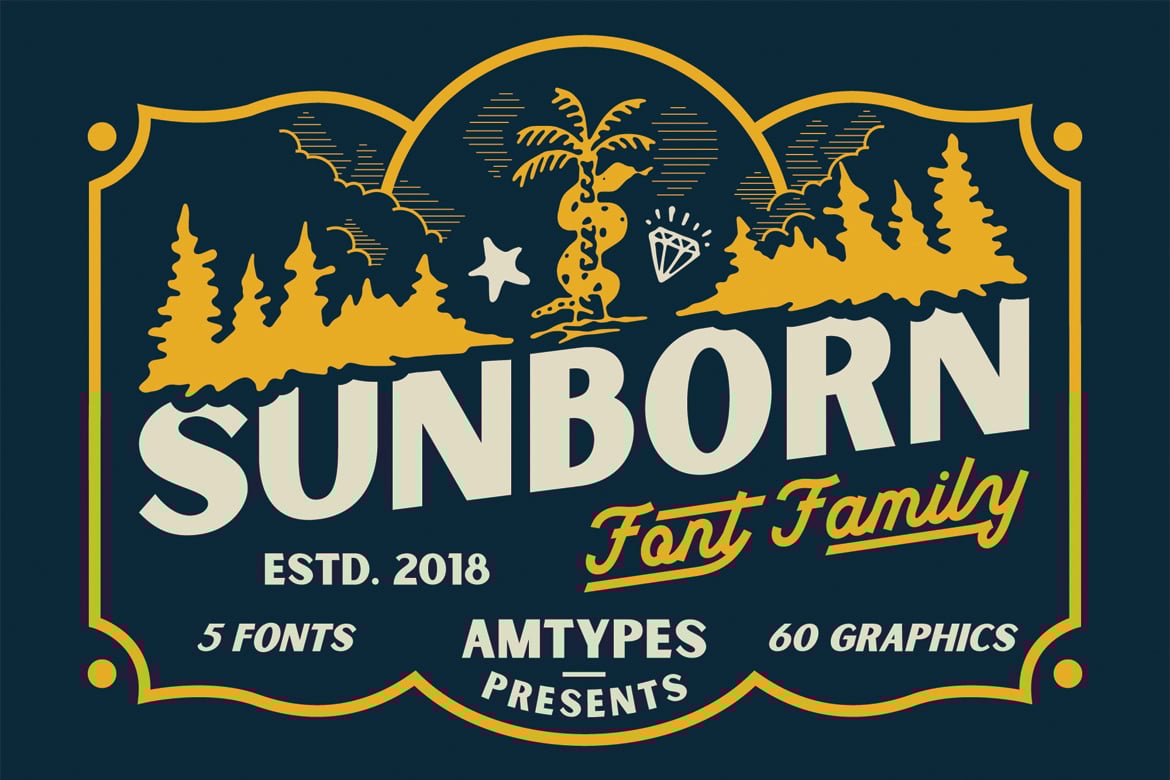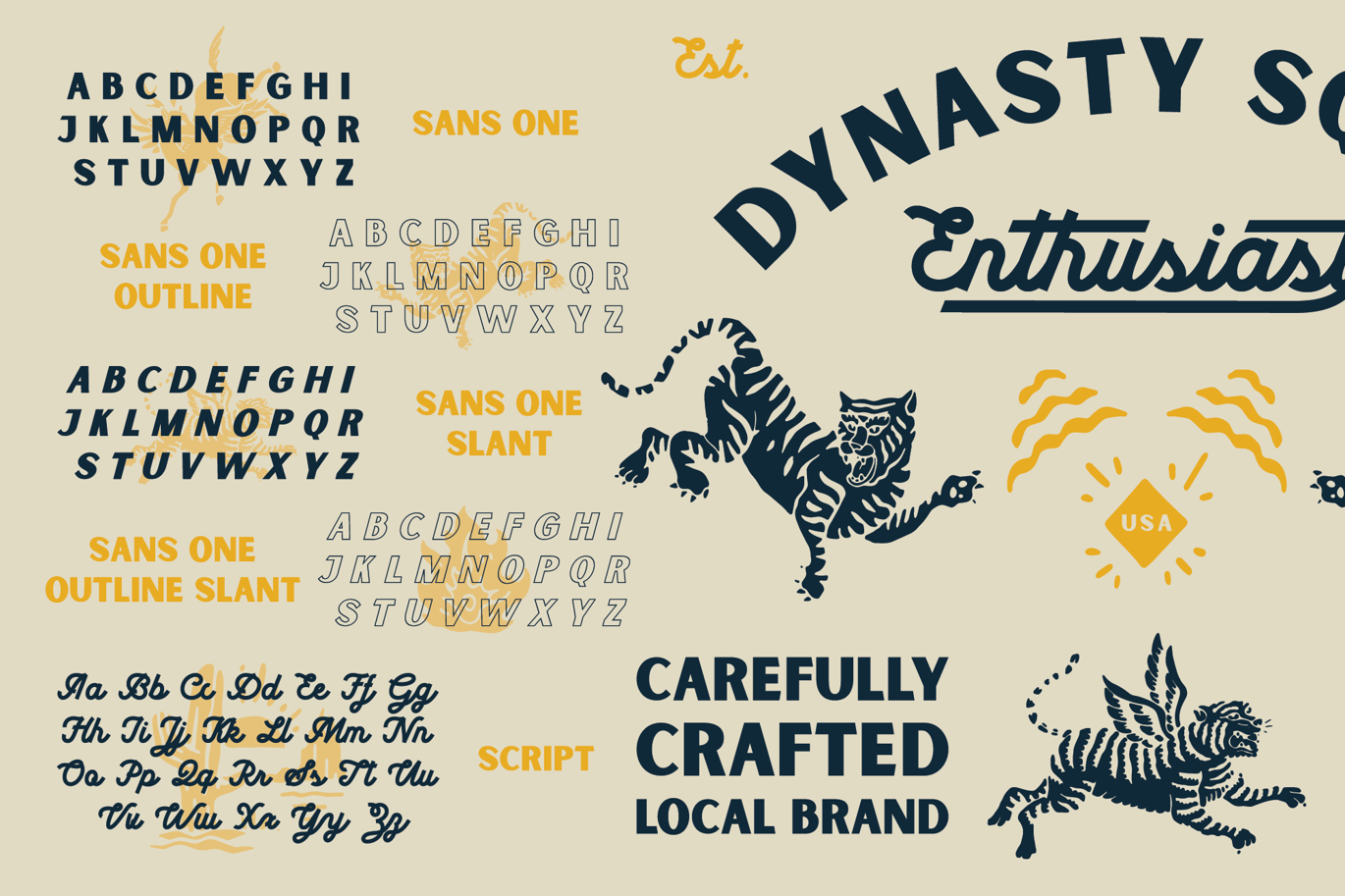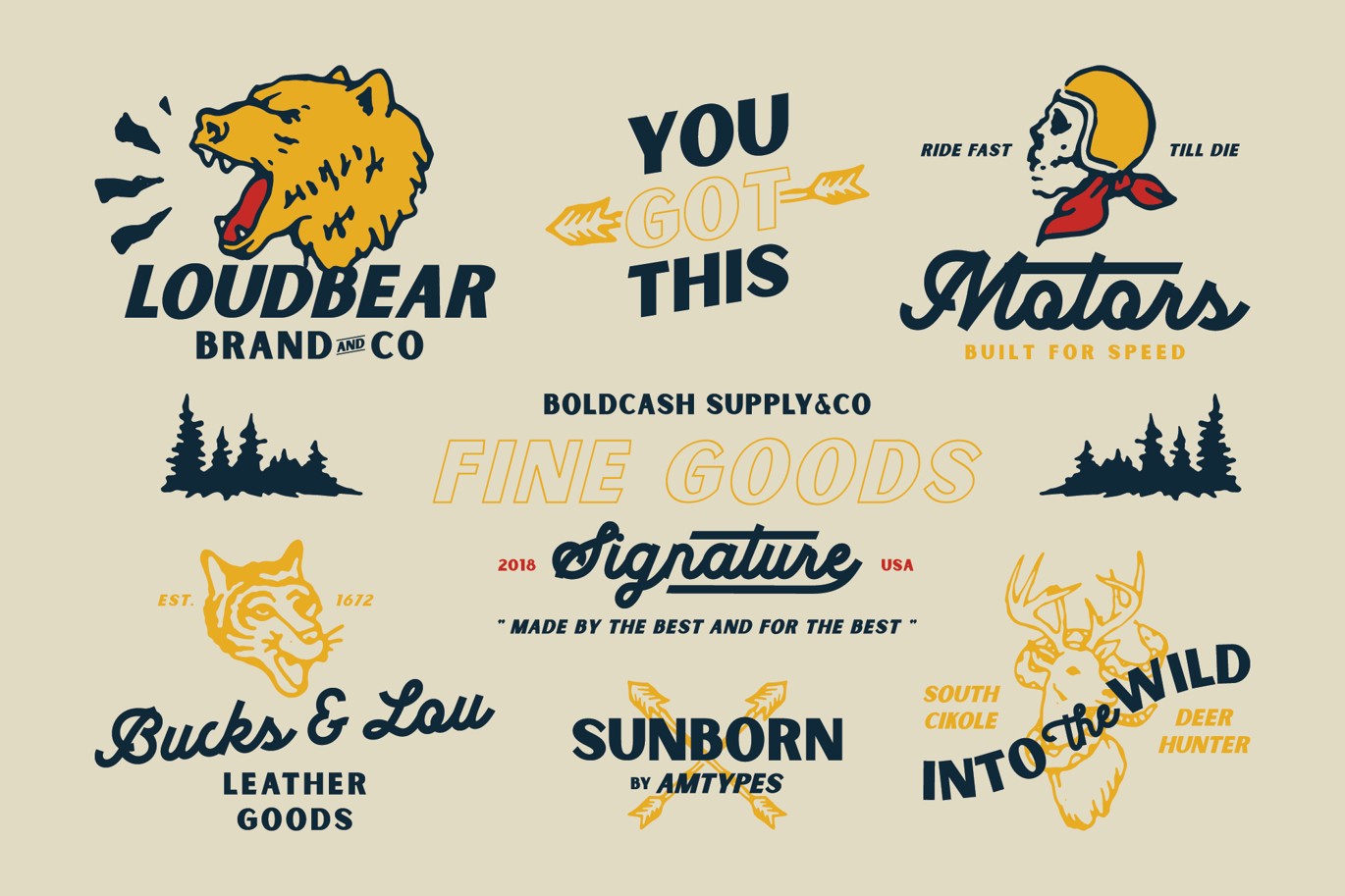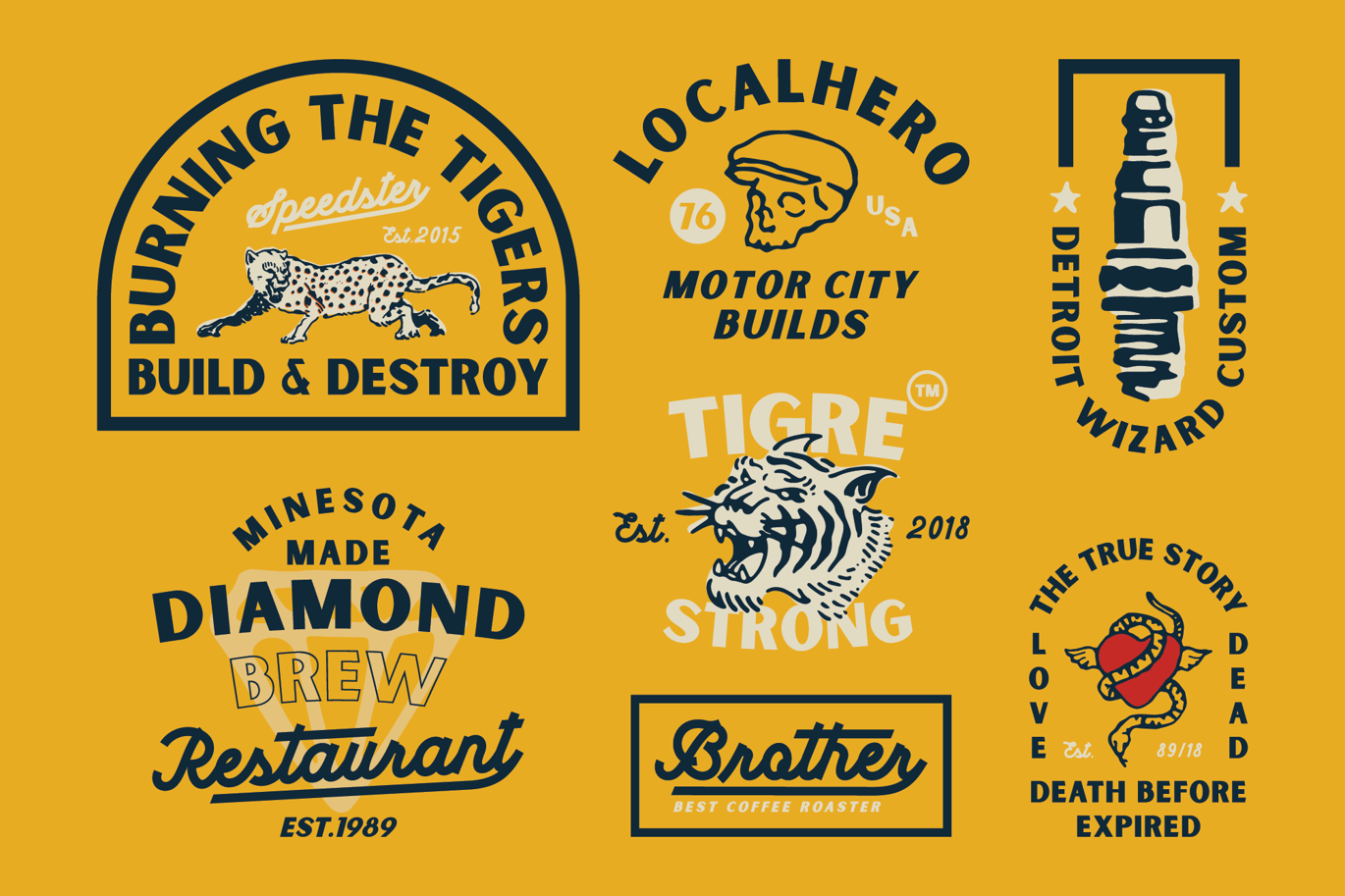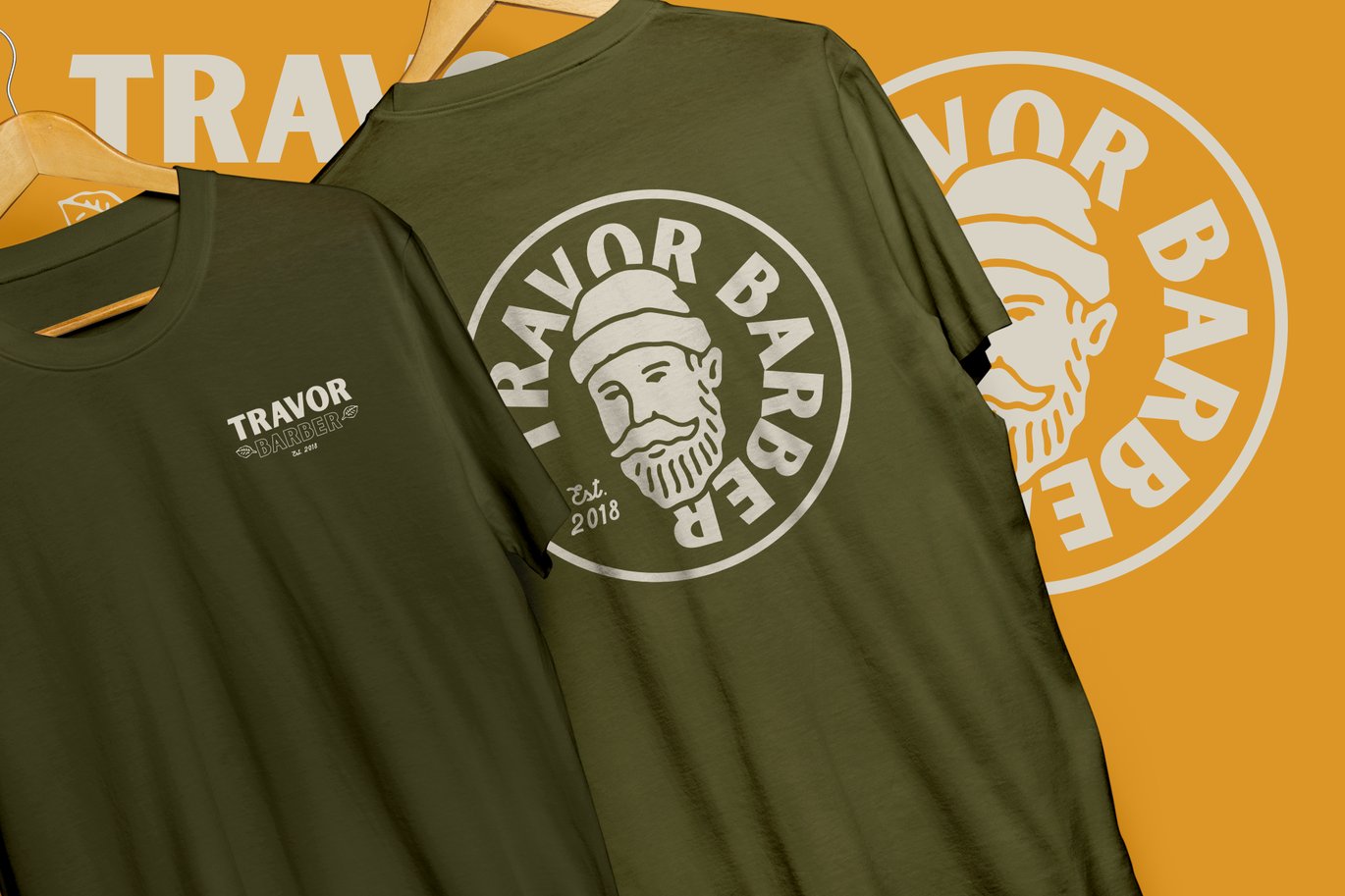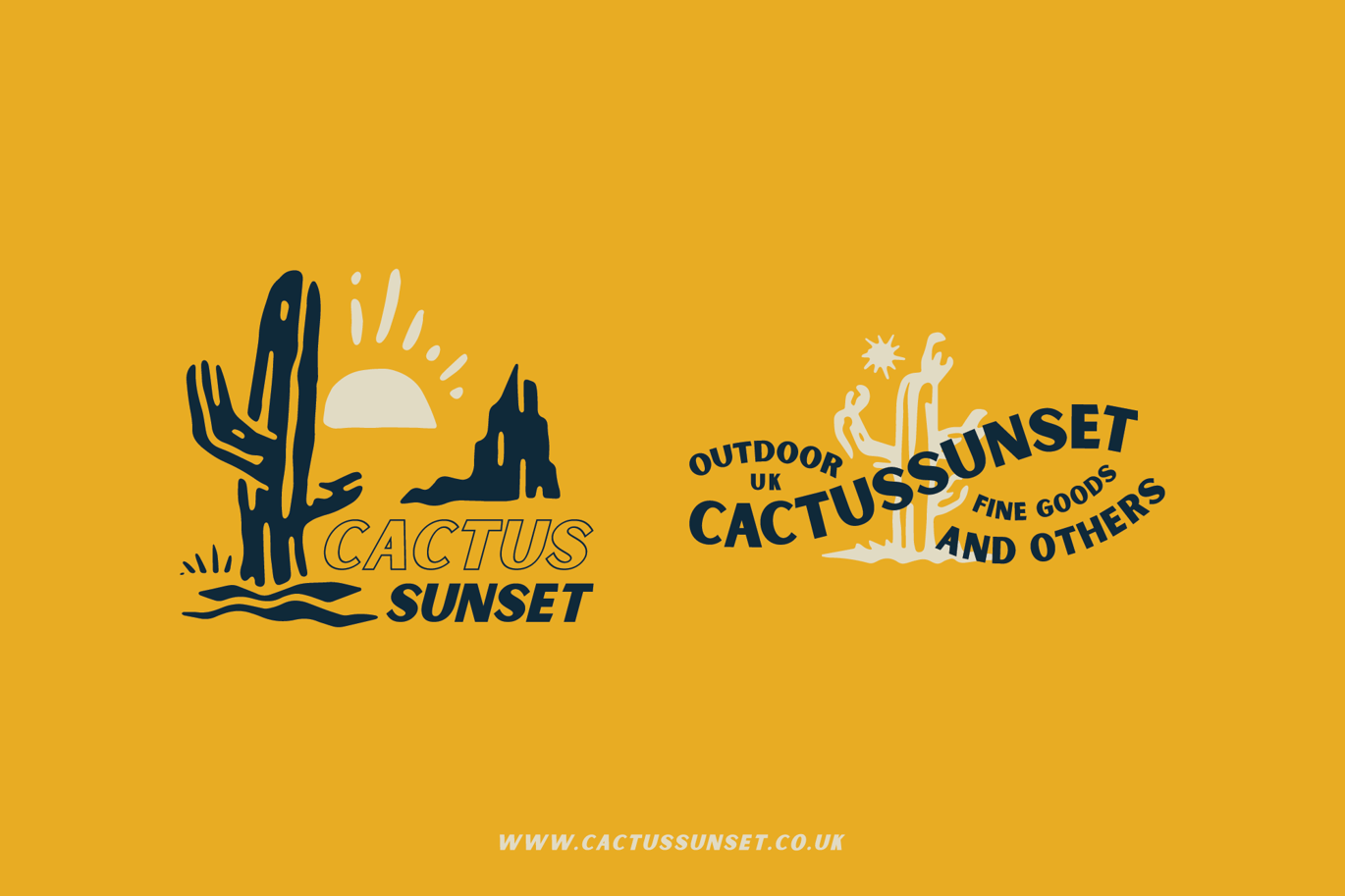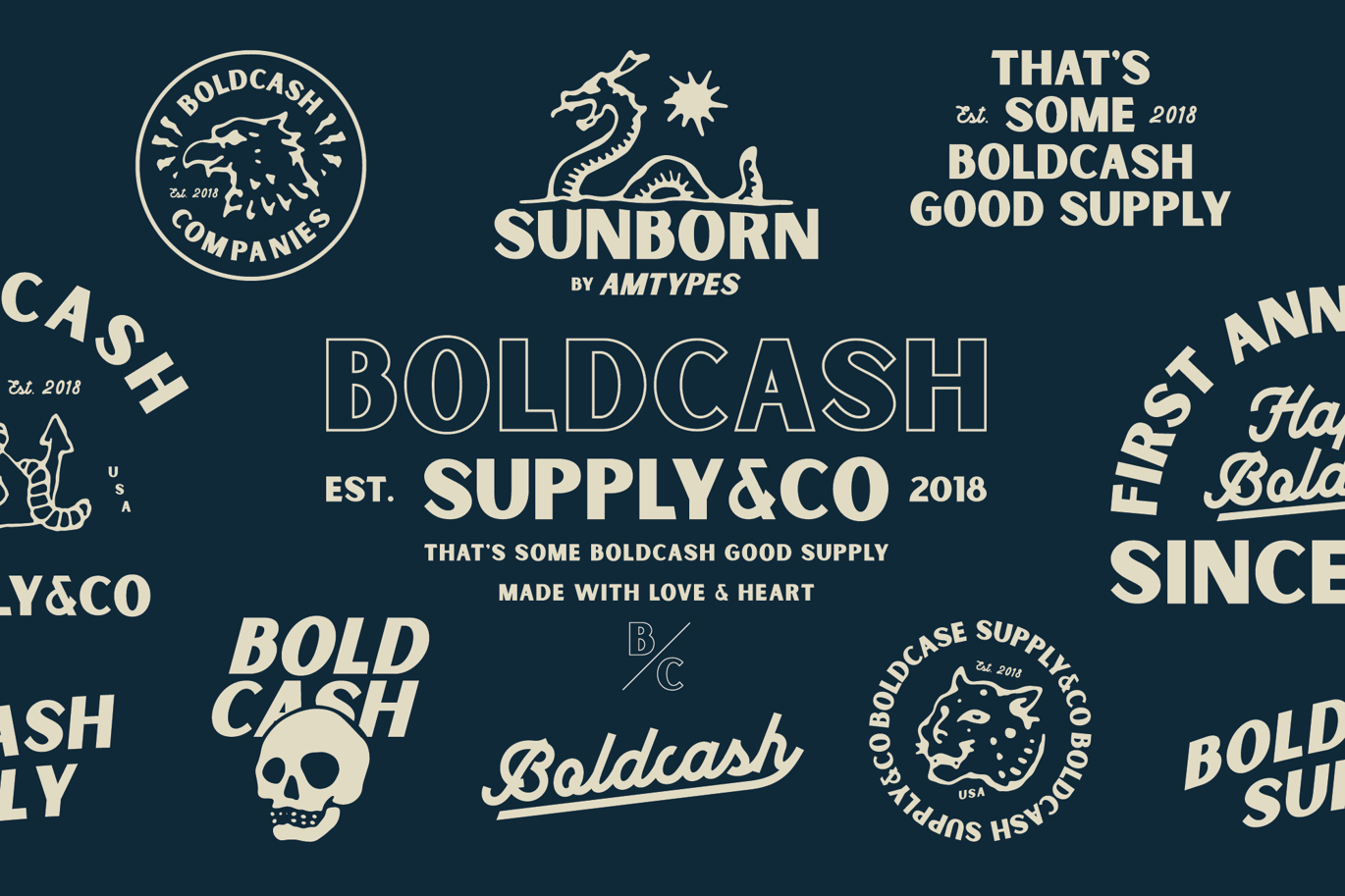
Sunborn Font Family
Sunborn is a simple and clean font. inspired from old merchandise such as labels, tins, badges and other vintage packaging. combined with handmade graphics packages, this font is perfect for your project needs such as poster design, label design, branding, logo design, greeting cards, merchandise, T-shirts and more.
• Sunborn Script
• Sunborn Sans One
• Sunborn Sans One Slant
• Sunborn Sans One Outline
• Sunborn Sans One Outline Slant
• 60 Graphics Pack
Sunborn Script – Uppercase & Lowercase, Numeral & Punctuation, Alternates, Swash, and Multilanguage Support
Sunborn Sans – All Caps, Numeral & Punctuation, and Multilanguage Support